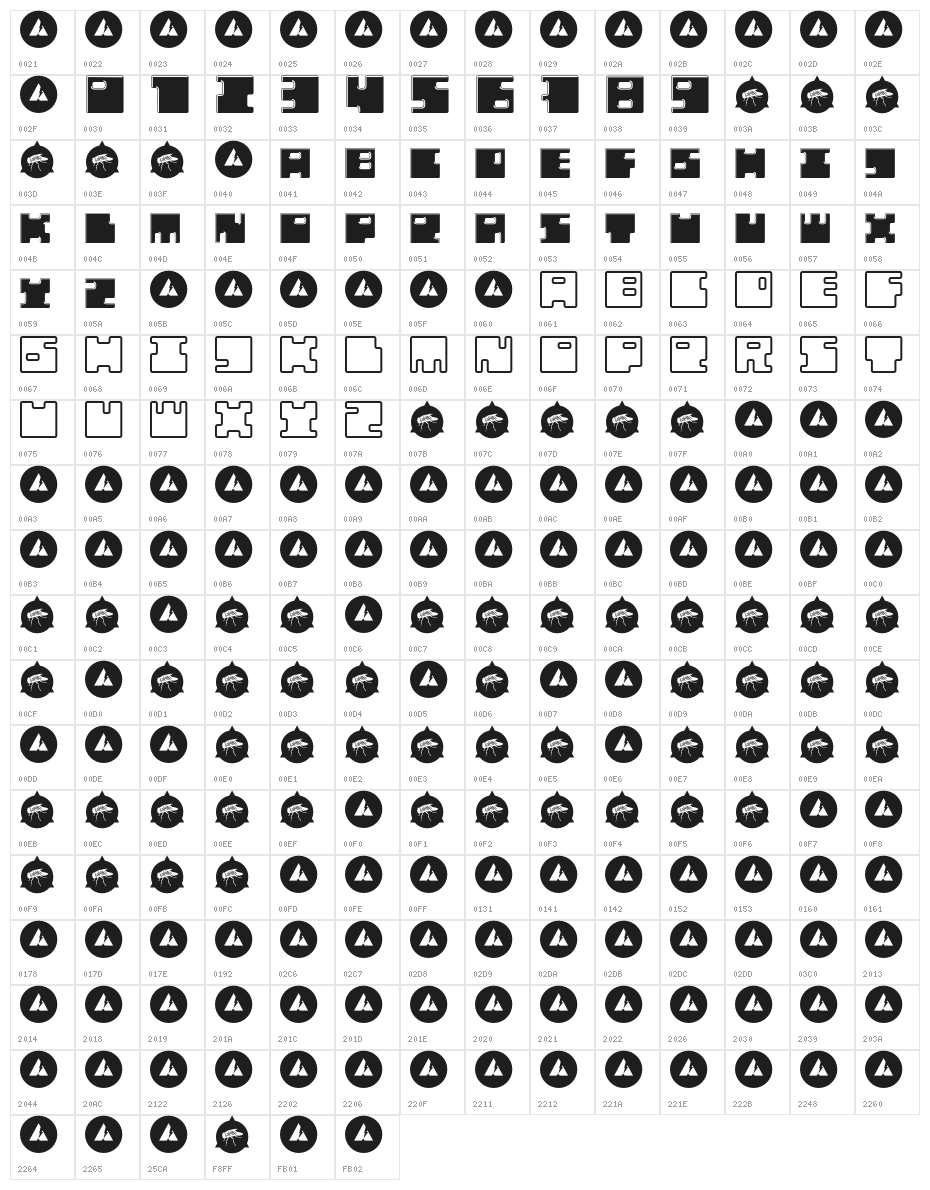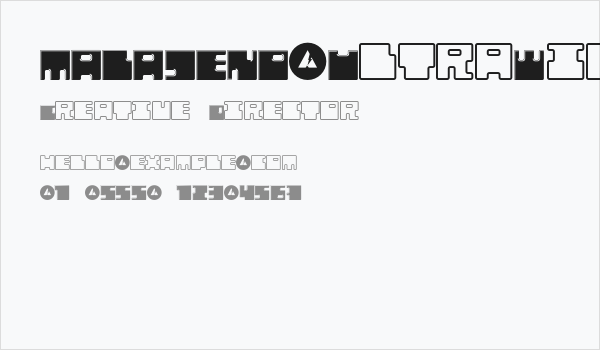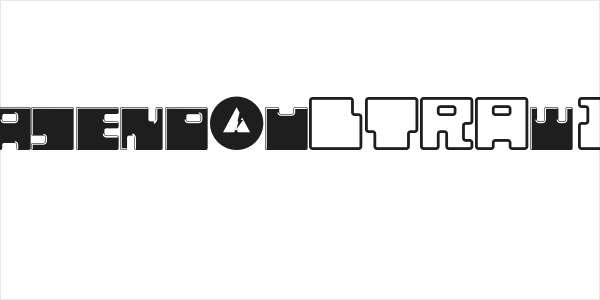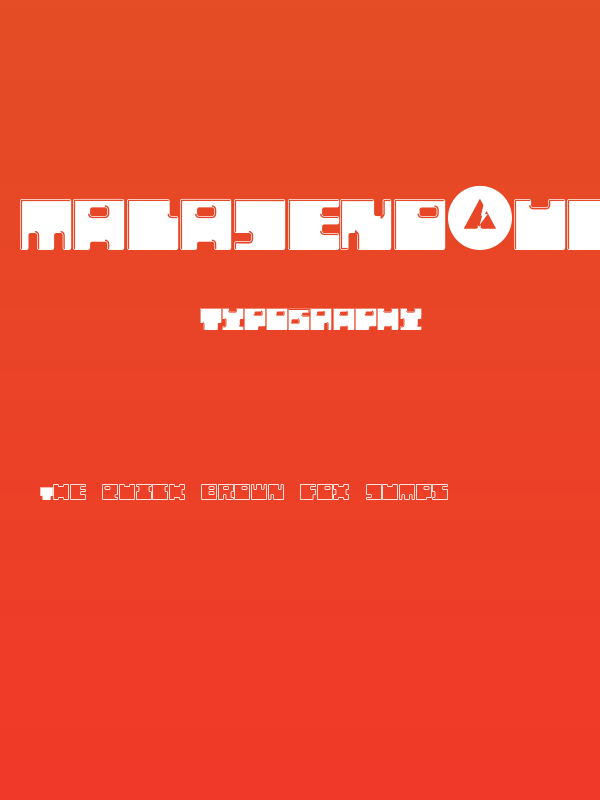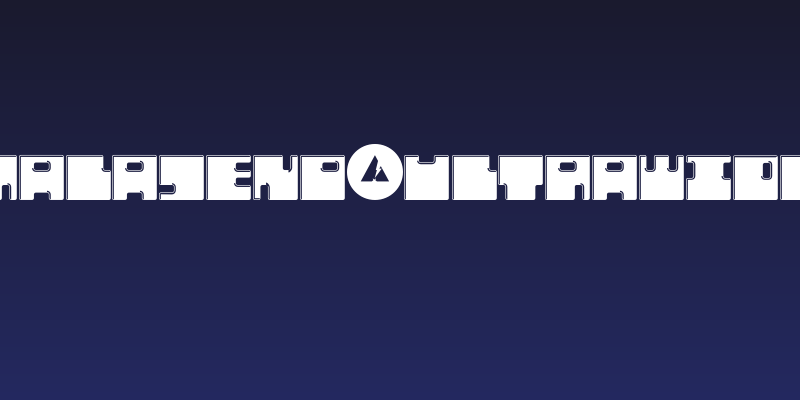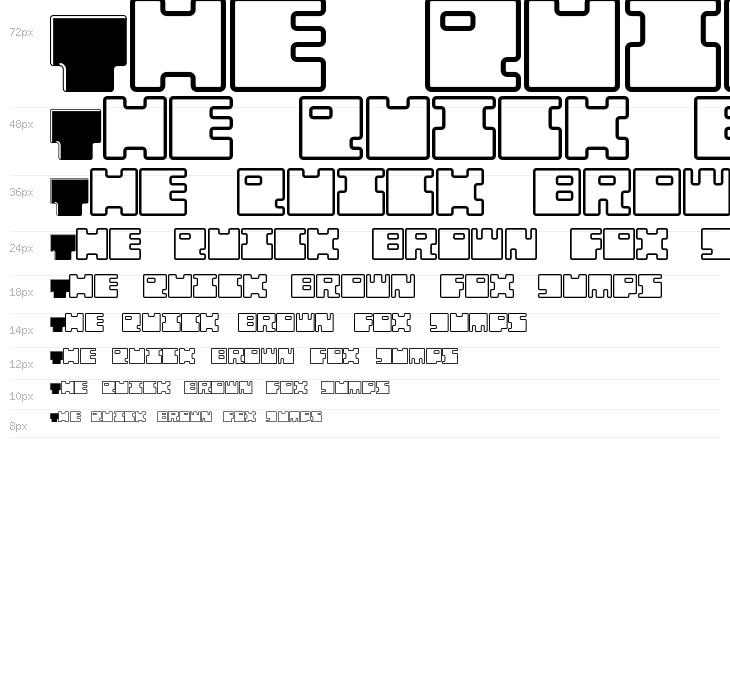
MALAJENO-UltraWide Font
MALAJENO-UltraWide Description
This ultra-wide font features bold, geometric shapes with a futuristic and industrial feel. The characters are constructed with thick, block-like forms that create a strong visual impact. The uppercase letters are particularly striking, with their solid, filled-in appearance, while the lowercase letters maintain the same boldness but with slightly more open spaces. The numbers follow the same design principles, ensuring consistency across all characters. The font's unique style is further emphasized by its wide character width, making it ideal for attention-grabbing headlines and display purposes. The overall design is modern and edgy, perfect for projects that require a bold statement.